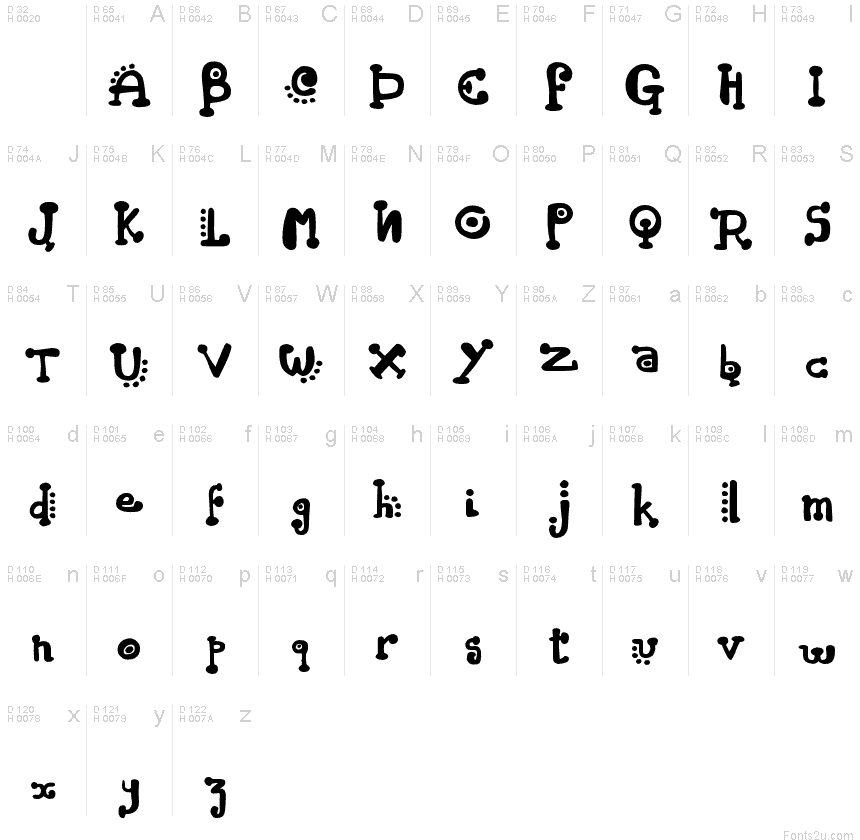
Flagadoum by Imagex is a free decorative display font with plump, uneven letters, softly pinched curves, and a cheerful cut-paper look. Scattered dots and off-center holes sharpen its homemade mischief.
Children's book covers and comedy posters draw on the same bouncy silhouettes despite serving very different print settings. Sweet packaging and party invitations also suit its rounded shapes and confetti-like details. In playful branding, the odd letterforms can become part of an illustrated mascot or badge rather than simple copy.